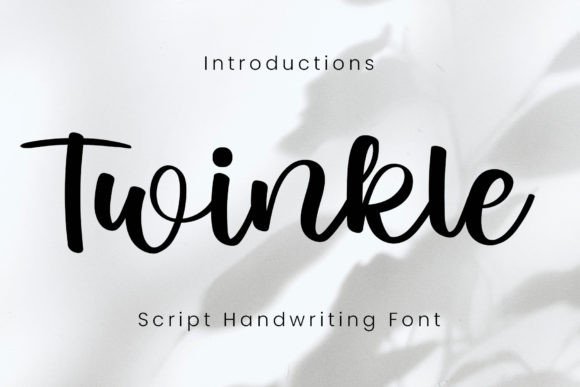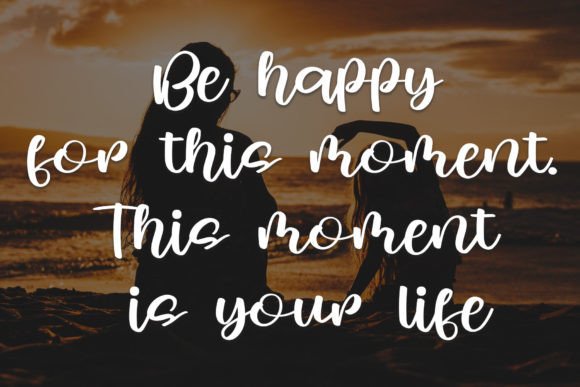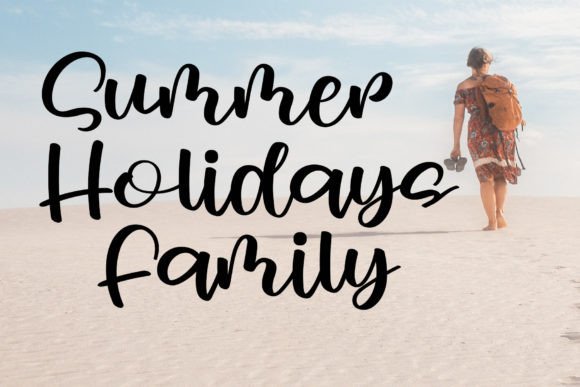
About Twinkle Font
Twinkle is a mesmerizing script font that radiates with dazzling charm. Meticulously crafted and intricately detailed, this font is a stunning addition to your font library. With its versatile design, Twinkle possesses the potential to elevate any creative project, regardless of the topic.
The careful craftsmanship of Twinkle ensures that each character is not only neatly executed but also carries an air of sophistication. The attention to detail in this font makes it stand out, making it an asset that can enhance a wide range of creations, from elegant invitations to eye-catching logos and beyond.
No matter the theme or context, Twinkle brings a touch of magic to your designs. Its script style adds a sense of fluidity and grace, making it well-suited for projects that require a combination of beauty and readability.
As you explore the possibilities with Twinkle, you’ll discover its ability to seamlessly adapt to various creative applications. Whether used in digital or print media, this font has the power to enhance the visual appeal of your work, making it a wonderful choice for designers seeking a font that sparkles with uniqueness.
In conclusion, Twinkle isn’t just a font; it’s a dazzling asset that can transform the ordinary into something extraordinary. With its carefully crafted details and enchanting script style, Twinkle stands ready to enhance the beauty of your creations and add a touch of brilliance to your font library.